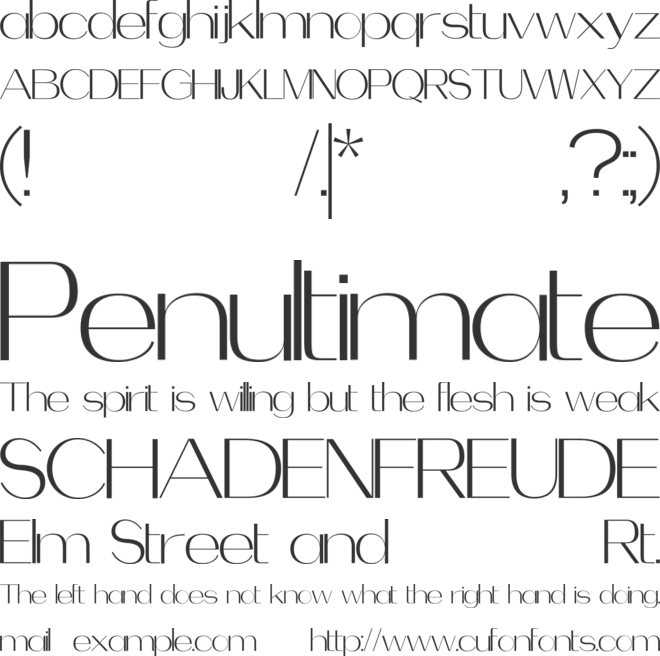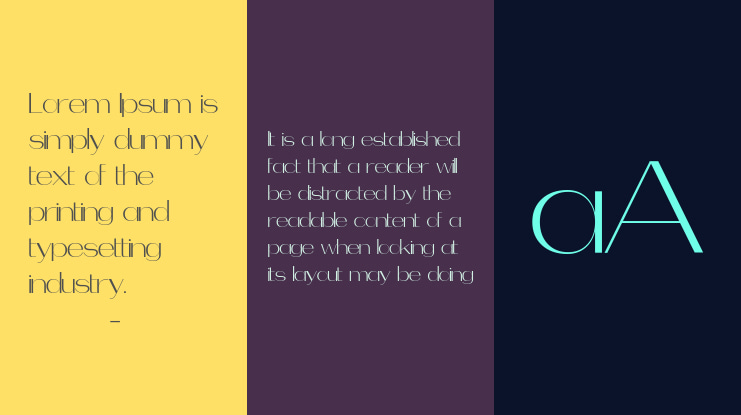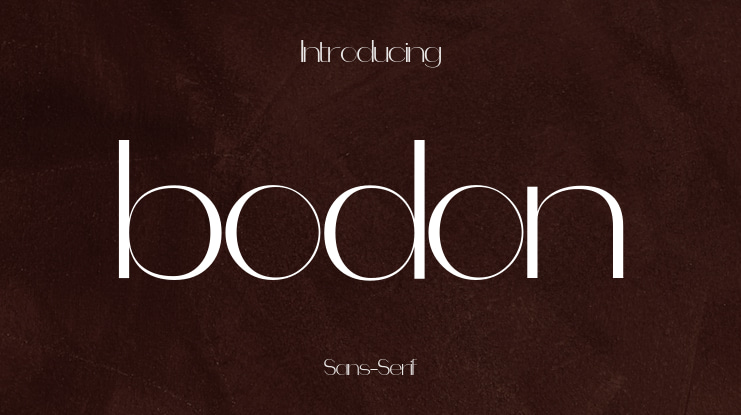
π¨ Font Name: Bodon by Minimalist Art Studio
π¨ Font Description: bodon is a delicate sans serif with soft sophistication and multilingual support, ideal for branding, editorial, and lifestyle design.